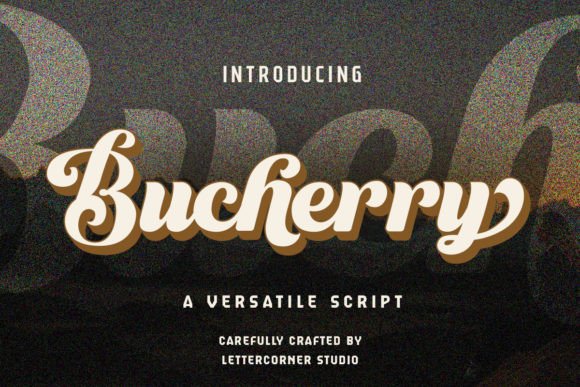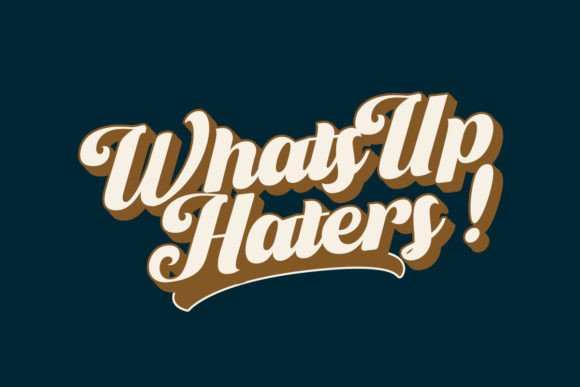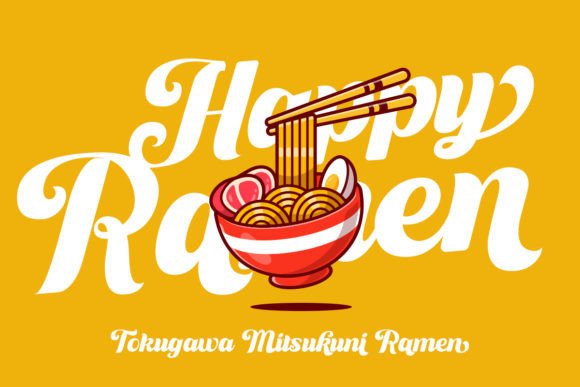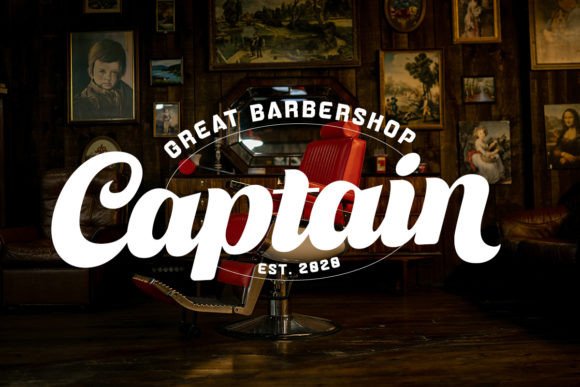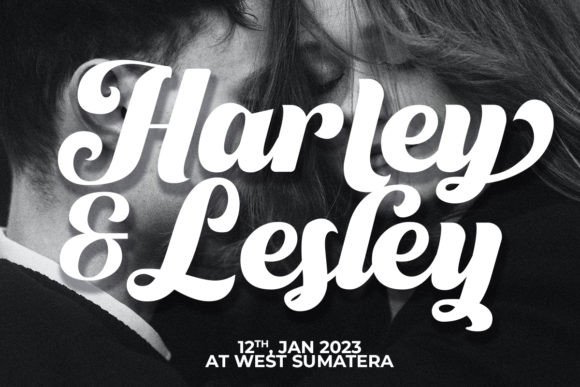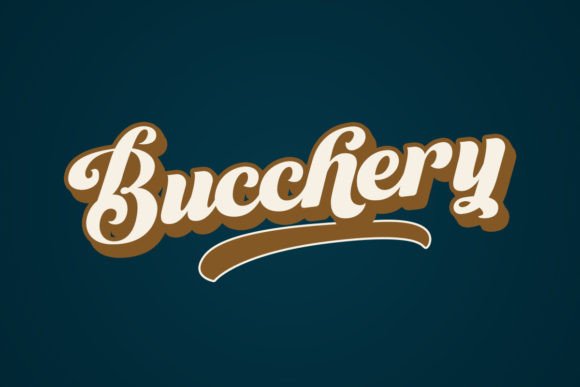
The Bucchery Font: A Timeless Elegance for Modern Designs
I still remember the frustration of working on a project, hours spent searching for the perfect font that would bring my design to life. My client wanted something elegant, yet modern; sophisticated, yet versatile. I tried font after font, but none seemed to fit the bill. That’s when I stumbled upon the Bucchery Script font. It was love at first sight! ✨
This beautiful font has been a game-changer for my design work, and I’m excited to share my experience with you. In this article, we’ll explore the Bucchery Font, its features, and how to make the most of it in your designs.
- ✨ Elegant and sophisticated, perfect for high-end designs
- ✅ Highly versatile, suitable for both modern and classic design landscapes
- ⚡️ Easy to use, with a clean and simple design
- 📝 Rich in detail, with a wide range of OpenType features and glyphs
While the Bucchery Font is an excellent choice, there are a few minor limitations to consider:
- 🤔 Some users may find the font a bit too slender for certain design applications
- ⚠️ Limited availability of certain language scripts
The Bucchery Font was designed with the intention of creating a harmonious blend of elegance and contemporary flair. The designer, inspired by the art of calligraphy, aimed to create a font that would be both sophisticated and versatile. The result is a beautiful, timeless font that is perfect for a wide range of design applications.
Q: What is the Bucchery Font?
A: The Bucchery Font is a beautiful script font that combines elegance and contemporary flair, making it perfect for modern and classic design landscapes.
Q: Is the Bucchery Font easy to use?
A: Yes, the Bucchery Font is easy to use, with a clean and simple design that makes it easy to integrate into your projects.